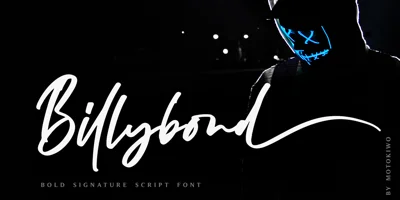
Billybond Font
Discover the stylish Billybond Font, a bold signature typeface by Motokiwo that brings a classy, handwritten charm to your designs. This font is perfect for creating an elegant, modern aesthetic. However, please note that you must purchase this font for commercial use. For testing purposes, you can download it for free and explore its stunning style.
The Billybond Font is ideal for various applications, such as designing sophisticated logos, crafting elegant invitations, creating eye-catching social media posts, or adding a refined touch to branding and product packaging. Its versatility and PUA-encoded ligatures make it a top choice for projects that demand a personalized, upscale look.
Why is the Billybond Font so exciting? Its bold strokes, stunning ligatures, and ending alternates offer a perfect blend of retro charm and modern elegance. The font’s dynamic design and multilingual support ensure your projects stand out with a unique, hand-crafted appeal that captivates audiences.
The Billybond Font family includes a single style, Billybond Regular, with 15 ligatures and alternate tails for creative flexibility. This streamlined design allows you to focus on its expressive qualities, ideal for both print and digital media.